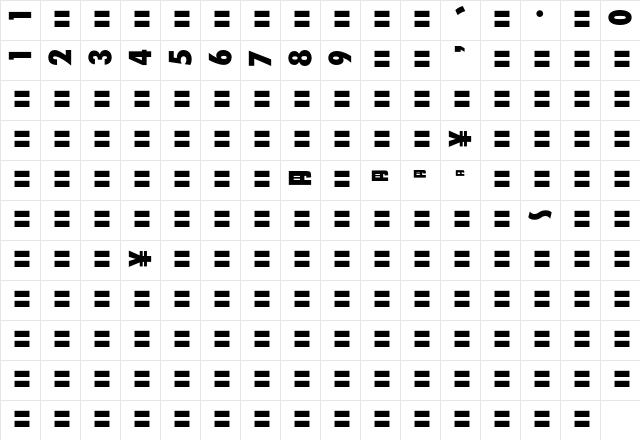
MOSuuji V C DHn
Style: DHn
Complete MOSuuji V C DHn glyph index. Displaying only characters natively supported by MOSuuji V C DHn font.
Design Context for MOSuuji V C
MOSuuji V C is a composed and adaptable typeface that performs quietly and consistently across a wide range of design contexts.